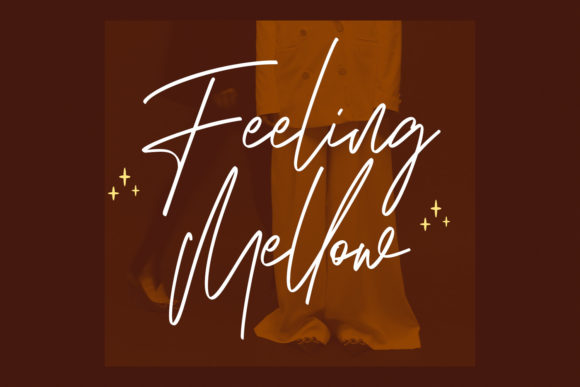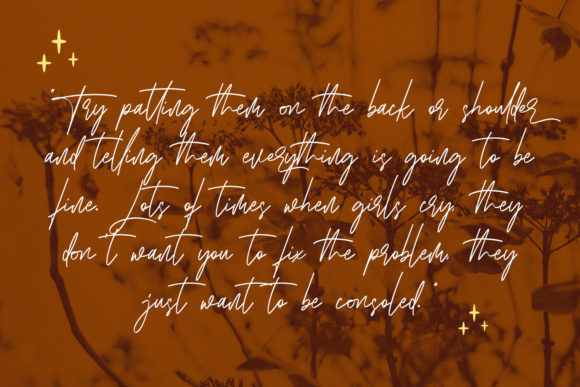
About Mellowly Font
Mellowly is an expressive signature script font. With high contrast strokes, tall and beautiful, this font will instantly make your creations more beautiful than ever. Add it confidently to your favorite creations and let yourself be amazed by the outcome generated.Â